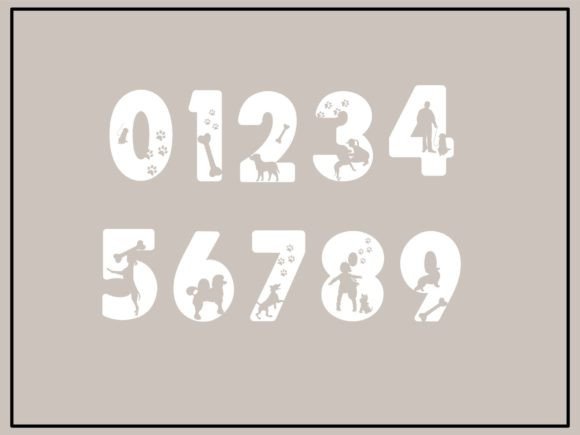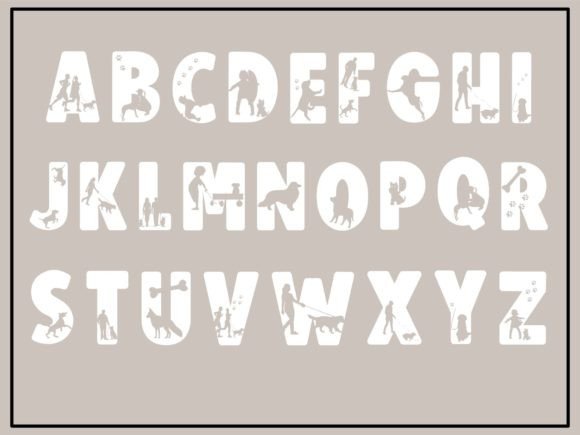
Unleash Creativity with Dog Style Font: The Perfect Choice for Fun and Playful Designs
Are you a designer or crafter looking for a font that can add a touch of fun and playfulness to your projects? Look no further than the Dog Style Font. This thick-lettered and decorative font is perfect for children-themed designs, and when paired with bright colors, it’s sure to make your creations stand out.
What is Dog Style Font?
Dog Style Font is a unique and eye-catching font that is designed to bring a sense of fun and excitement to your designs. Its thick letters and playful style make it perfect for use in a variety of projects, from children’s party invitations to educational materials and crafts.
Characteristics of Dog Style Font
So, what makes Dog Style Font so special? Here are just a few of its key characteristics:
- Thick-Lettered: The font features thick, bold letters that are easy to read and fun to look at.
- Decorative: The font has a decorative style that adds a touch of playfulness to any design.
- Perfect for Children: The font is ideal for use in children-themed designs, such as party invitations, educational materials, and crafts.
- Versatile: The font can be used in a variety of projects, from digital designs to print materials.
Uses for Dog Style Font
So, what can you use Dog Style Font for? The possibilities are endless! Here are a few ideas to get you started:
- Children’s Party Invitations: Create fun and playful invitations for kids’ parties with Dog Style Font.
- Educational Materials: Use the font to create engaging and interactive educational materials, such as worksheets and activity sheets.
- Crafts: Add a touch of fun and personality to your crafts, such as scrapbook pages and handmade cards.
- Digital Designs: Use the font in digital designs, such as social media graphics and blog posts.
Tips for Using Dog Style Font
Here are a few tips for getting the most out of Dog Style Font:
- Pair with Bright Colors: Combine the font with bright, bold colors to really make your designs pop.
- Experiment with Different Sizes: Try using the font in different sizes to add visual interest to your designs.
- Use in Combination with Other Fonts: Combine Dog Style Font with other fonts to create a unique and eye-catching look.
| Font Name | Dog Style Font |
| Author | Font design market |
Dog Style Font is a fun and playful font that is perfect for designers and crafters looking to add a touch of personality to their projects. With its thick letters and decorative style, it’s ideal for use in children-themed designs and can be paired with bright colors to really make your creations stand out. So why not give it a try and see what amazing designs you can create?
Whether you’re a seasoned designer or a crafty DIY enthusiast, Dog Style Font is sure to become a favorite in your font collection. So go ahead, get creative, and have fun with Dog Style Font!